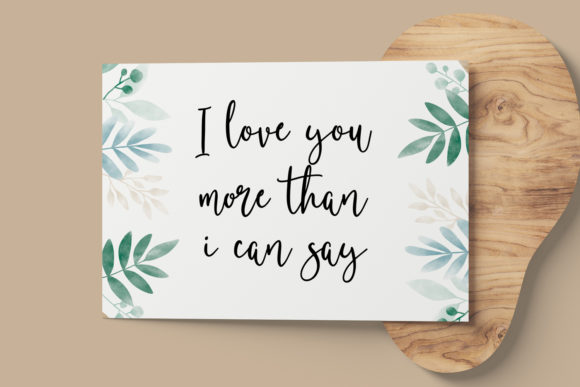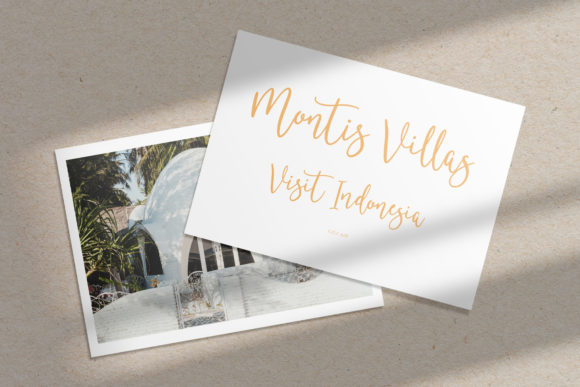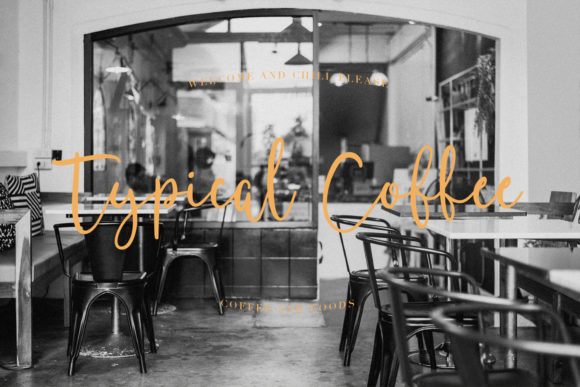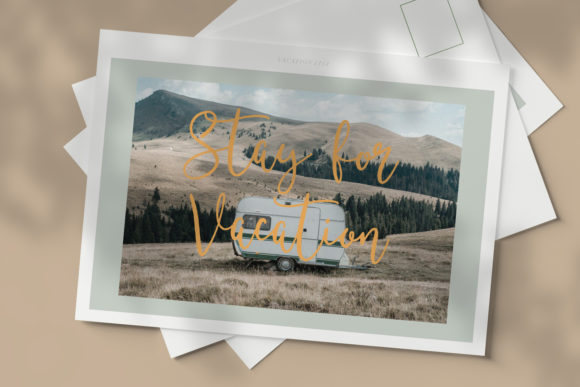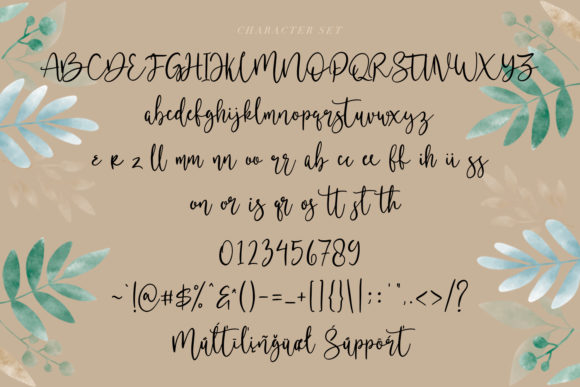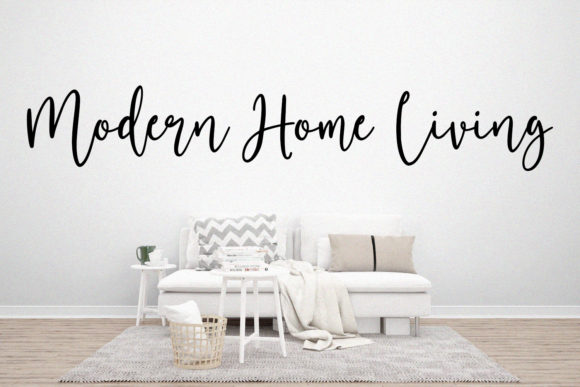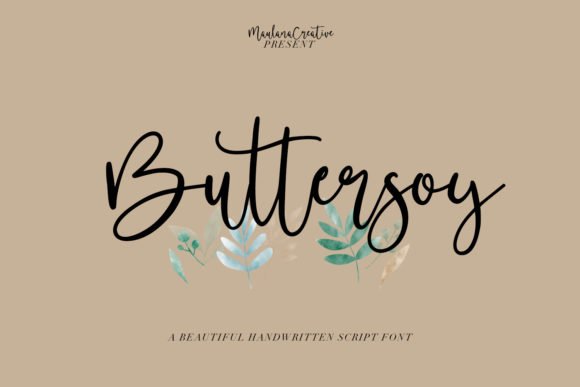
The Perfect Touch of Elegance with Buttersoy Font
Have you ever stared at a blank canvas, waiting for the perfect idea to strike? That’s exactly what happened to me last week. I was brainstorming ideas for a new project when I stumbled upon a font that changed everything – the Buttersoy Font. Its beautiful light handwritten style instantly caught my attention, and I knew I had to learn more.
Buttersoy Font is more than just a pretty face; it’s a powerful tool designed to add a touch of luxury to any design project. With its unique feel and stunning impact, it’s the perfect addition to your creative arsenal. Whether you’re a seasoned designer or just starting out, Buttersoy Font is an invaluable asset that will elevate your work to new heights.
Buttersoy Font Key Features
- Font Family: Buttersoy Font is a display font designed to evoke a sense of nostalgia and whimsy.
- Unique Characteristics: The Buttersoy Font features a distinctive, hand-drawn feel with intricate details and flourishes, making it perfect for adding a touch of personality to designs.
Buttersoy Font Review
As a designer, I was excited to try out the Buttersoy Font. Upon first glance, I thought it was a nice addition to any design project. ✨ Here are a few things that work well:
- The Buttersoy Font has a unique and playful feel that can add a lot of personality to your designs.
- The font is highly legible, even at smaller sizes, making it perfect for body text.
- The font family is quite extensive, with a range of weights and styles to choose from.
However, as with any font, there are some limitations to consider. ⚠️ Here are a few things that didn’t quite work for me:
- The Buttersoy Font may not be the best choice for formal or professional projects, as it has a somewhat casual feel.
Overall, I would say that the Buttersoy Font is a solid choice for designers looking for a fun and playful font. While it may not be perfect for every project, it’s a great option for adding some personality to your designs. With a little bit of experimentation and planning, I think you’ll find that the Buttersoy Font is a great addition to your design toolkit.
The Buttersoy Font is a unique, handwritten font that is perfect for adding a personal touch to your designs. Some common use cases include:
– Handmade or vintage-inspired designs
– Quirky or humorous content
– Personalized gifts or cards
– Branding and logos with a unique, handwritten feel.
Alternatives to Buttersoy Font for Designers
Great Vibes Font is a beautiful script font with a relaxed, casual feel. It’s perfect for use in wedding invitations, social media graphics, and any other design project where a friendly, approachable tone is desired.
Compared to Buttersoy Font, Great Vibes Font has a more fluid, cursive feel, making it ideal for projects that require a softer, more personal touch. However, Great Vibes Font lacks the quirky, vintage charm of Buttersoy Font.
Carolyna Pro Font is a modern, elegant script font with a sophisticated feel. It’s perfect for use in luxury branding, high-end packaging, and any other design project where a refined, polished tone is desired.
Compared to Buttersoy Font, Carolyna Pro Font has a more refined, polished feel, making it ideal for projects that require a sense of sophistication and elegance. However, Carolyna Pro Font lacks the playfulness and whimsy of Buttersoy Font.
Alex Brush Font is a beautiful, handwritten font with a personal, intimate feel. It’s perfect for use in blog posts, social media graphics, and any other design project where a friendly, approachable tone is desired.